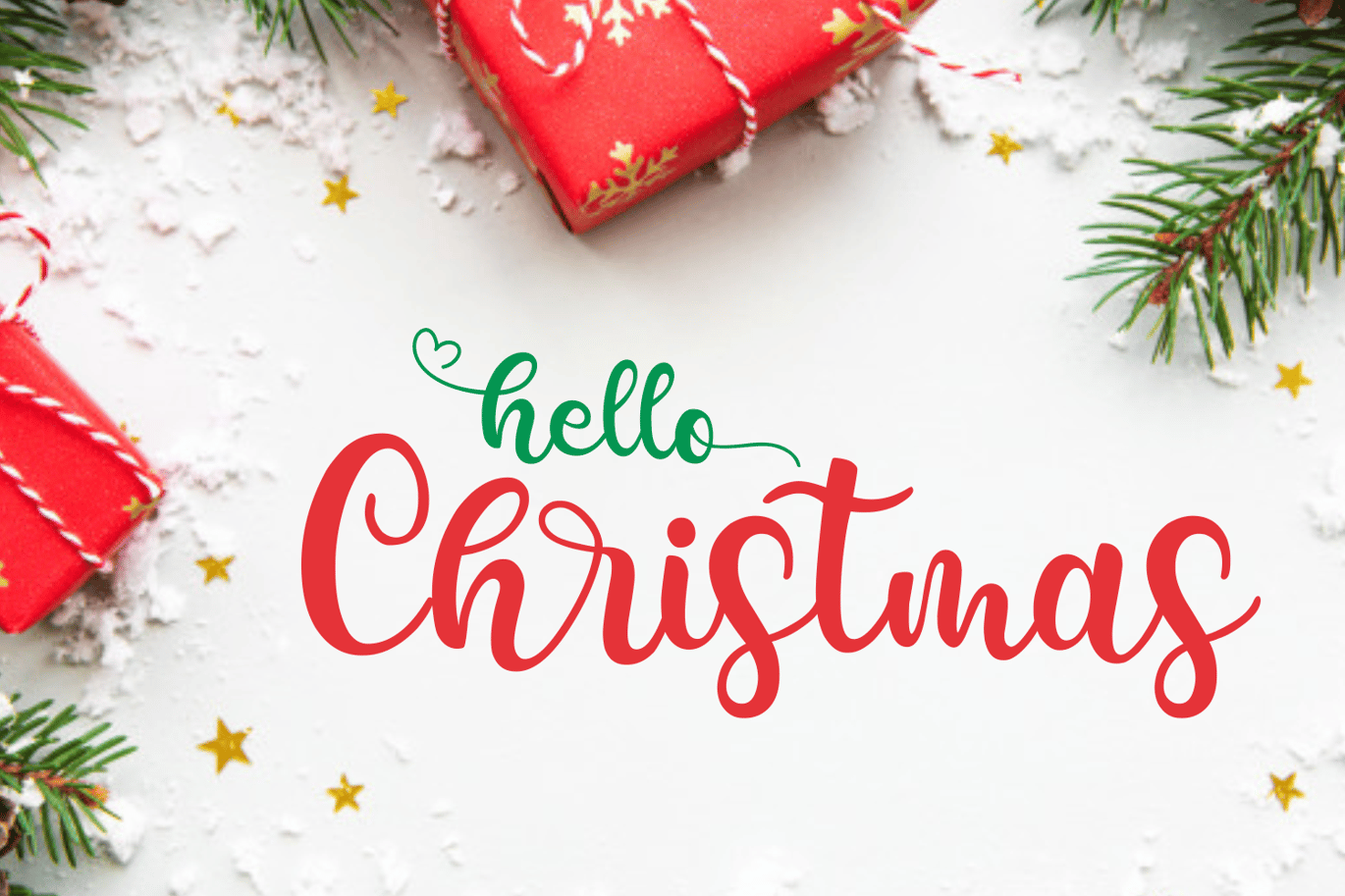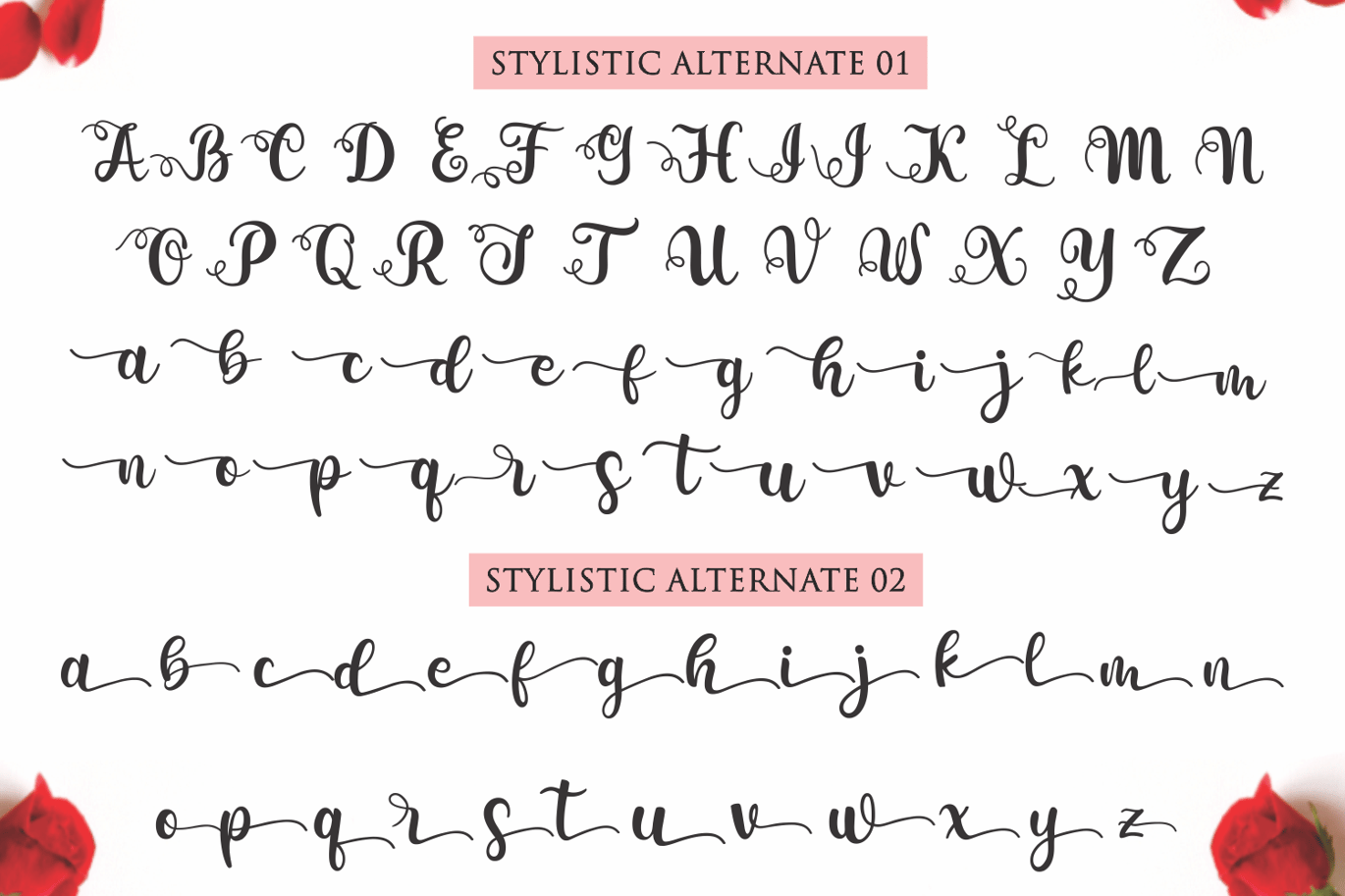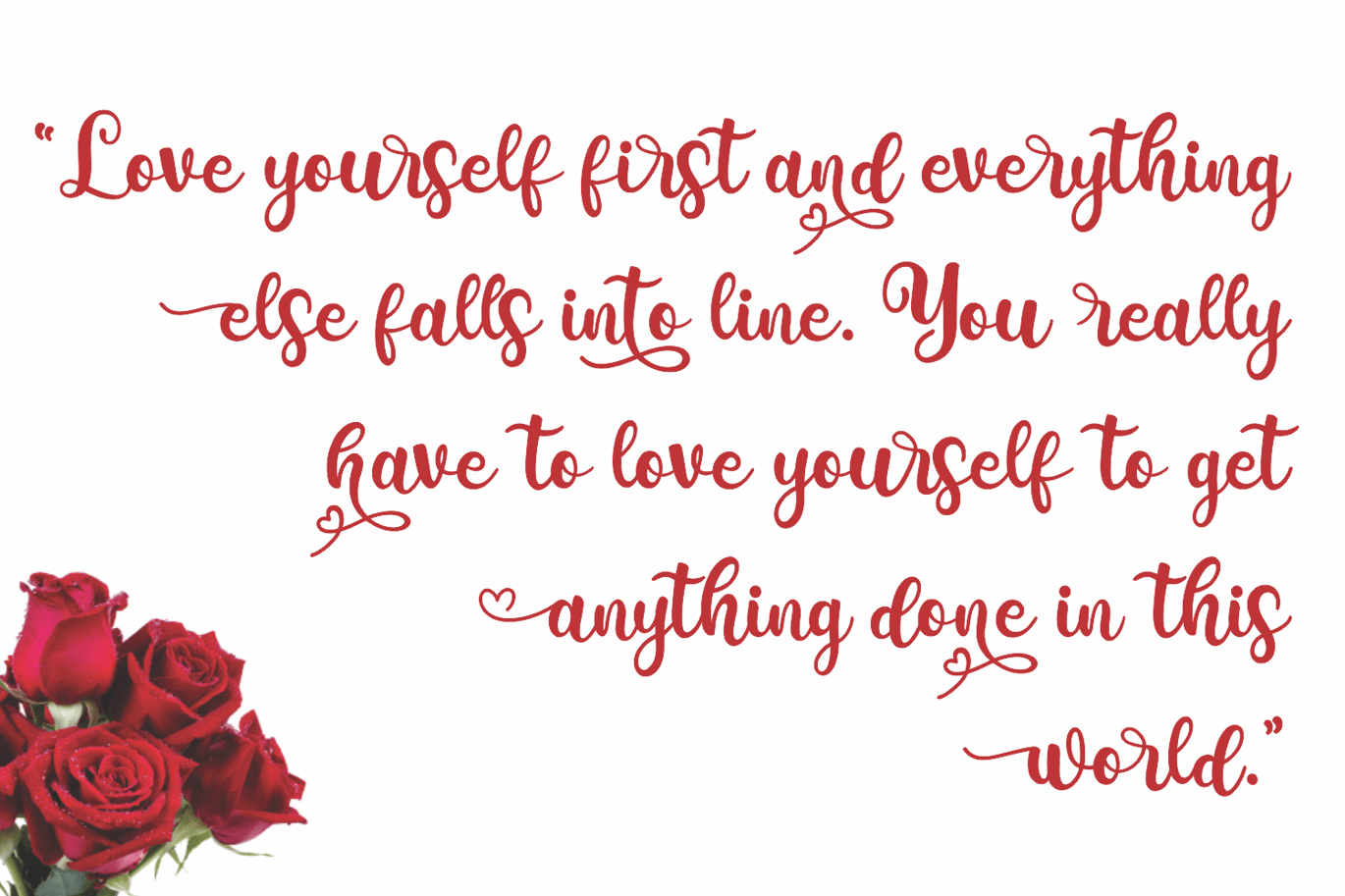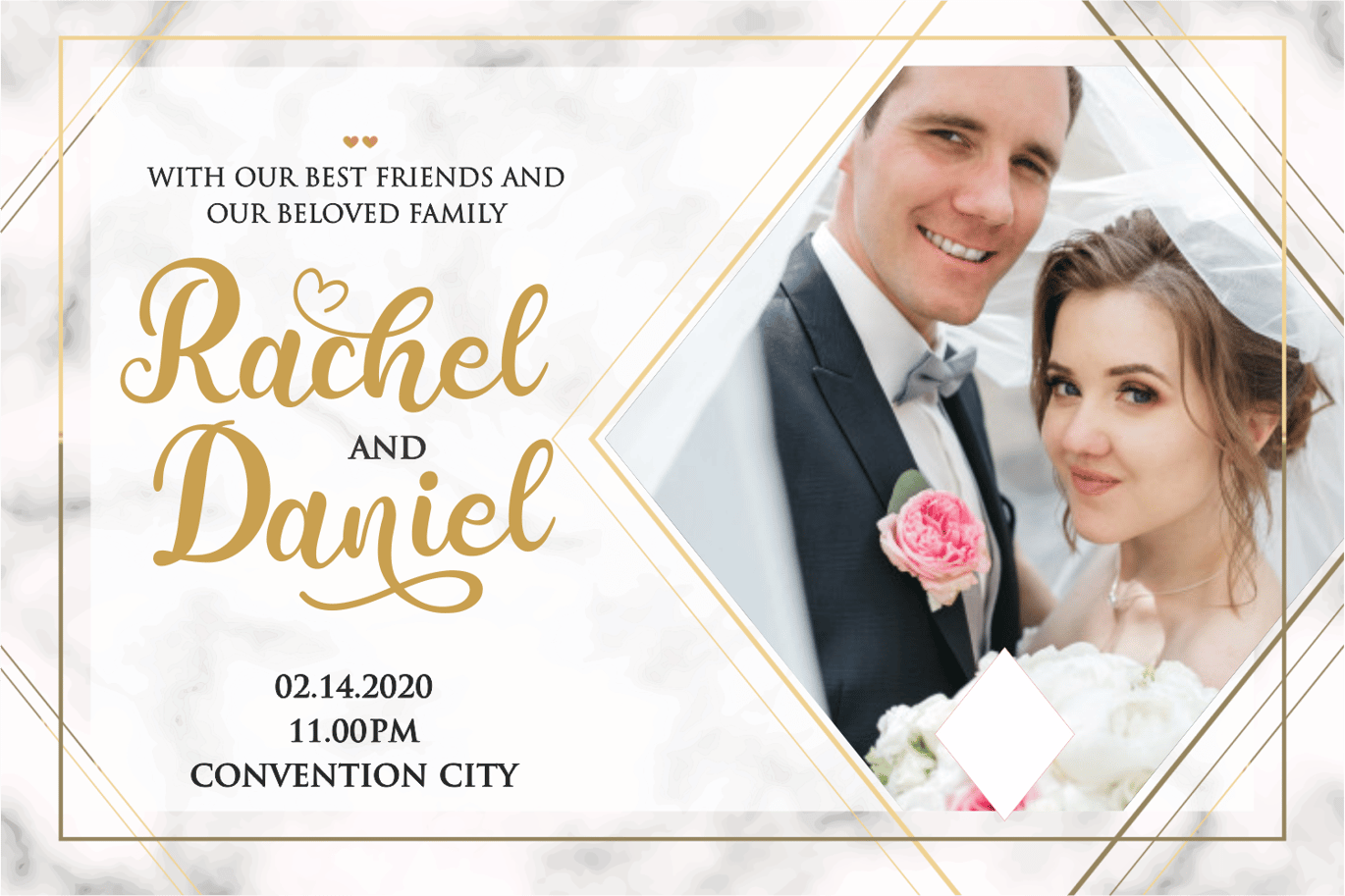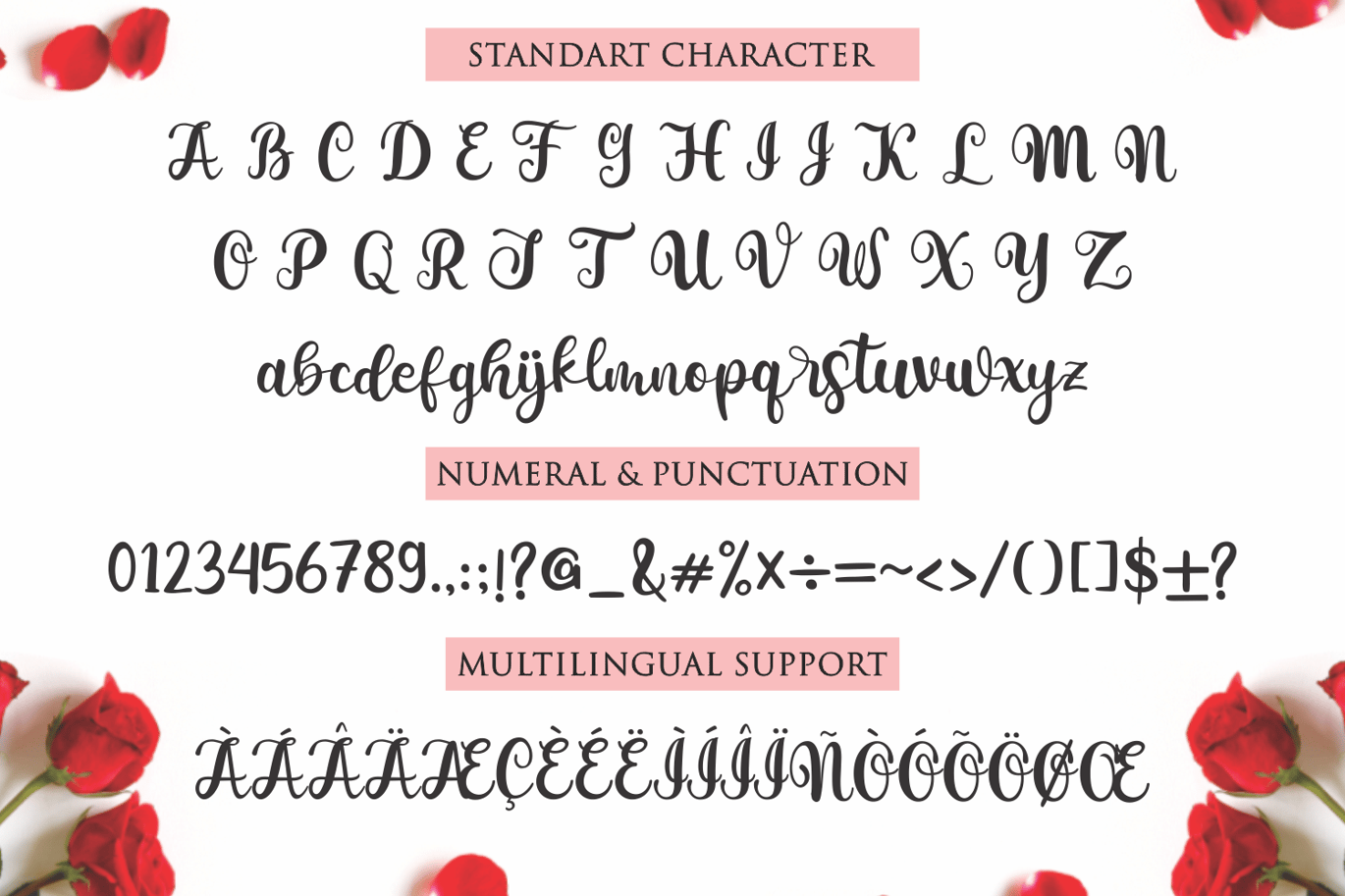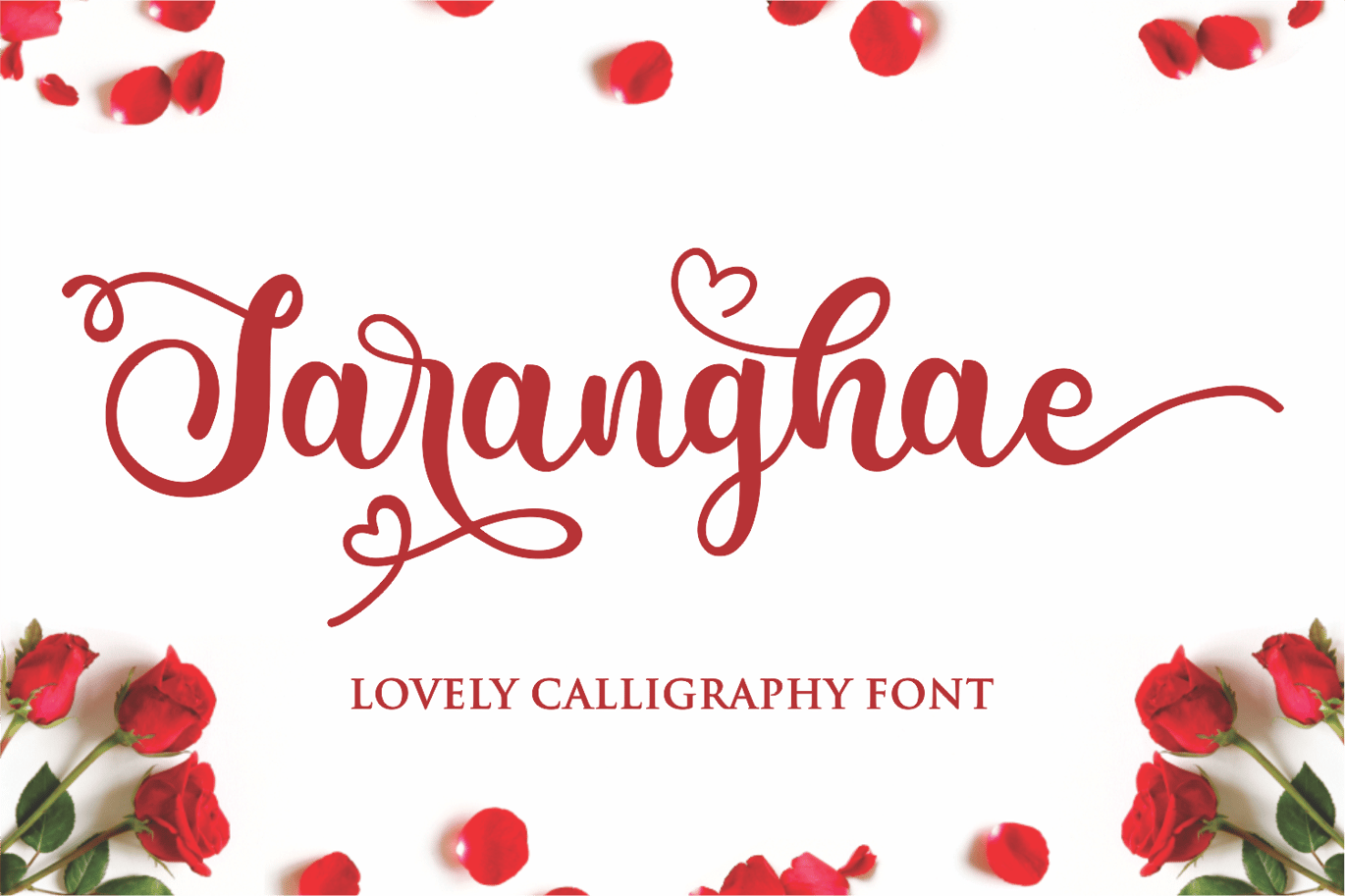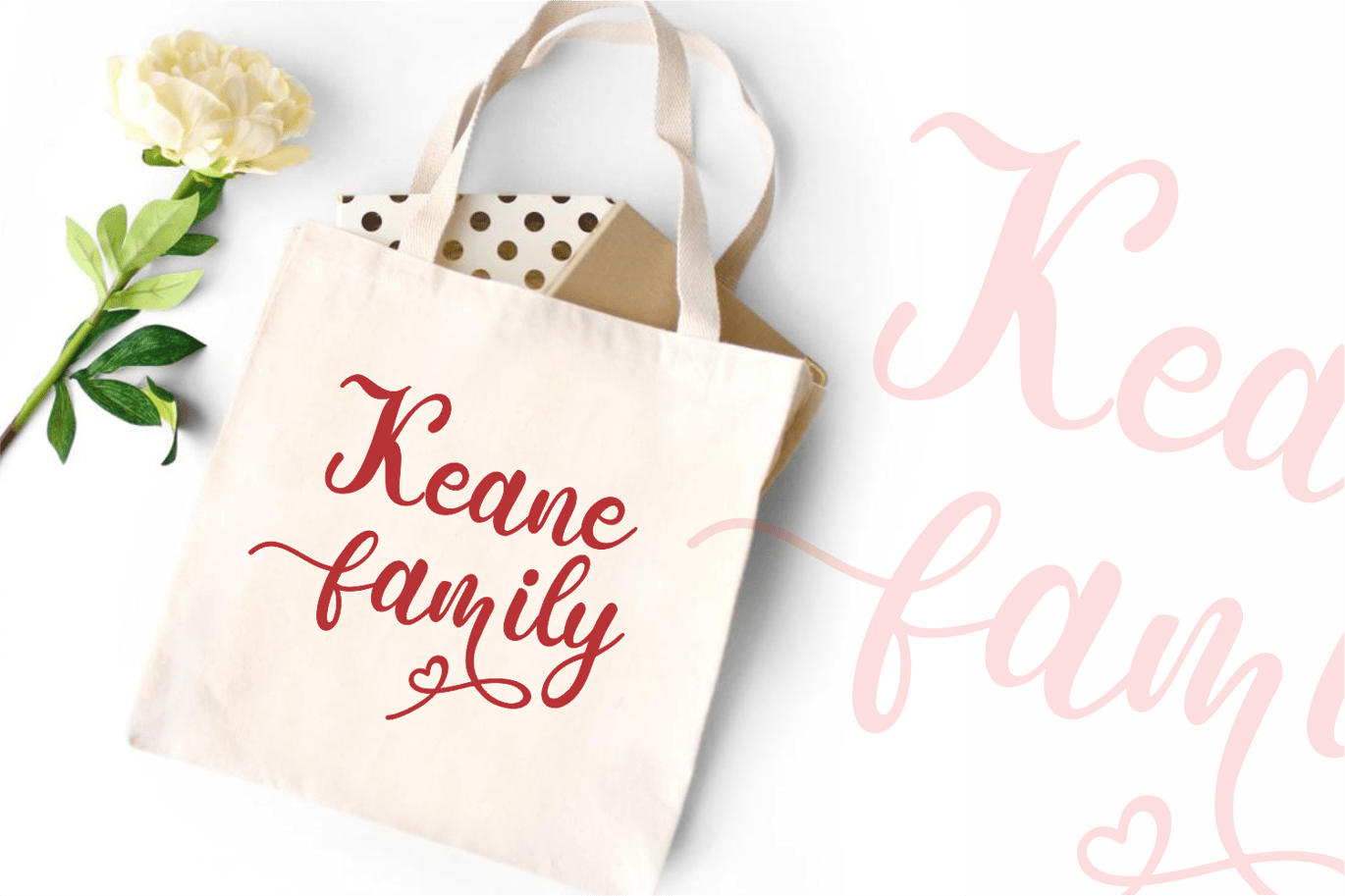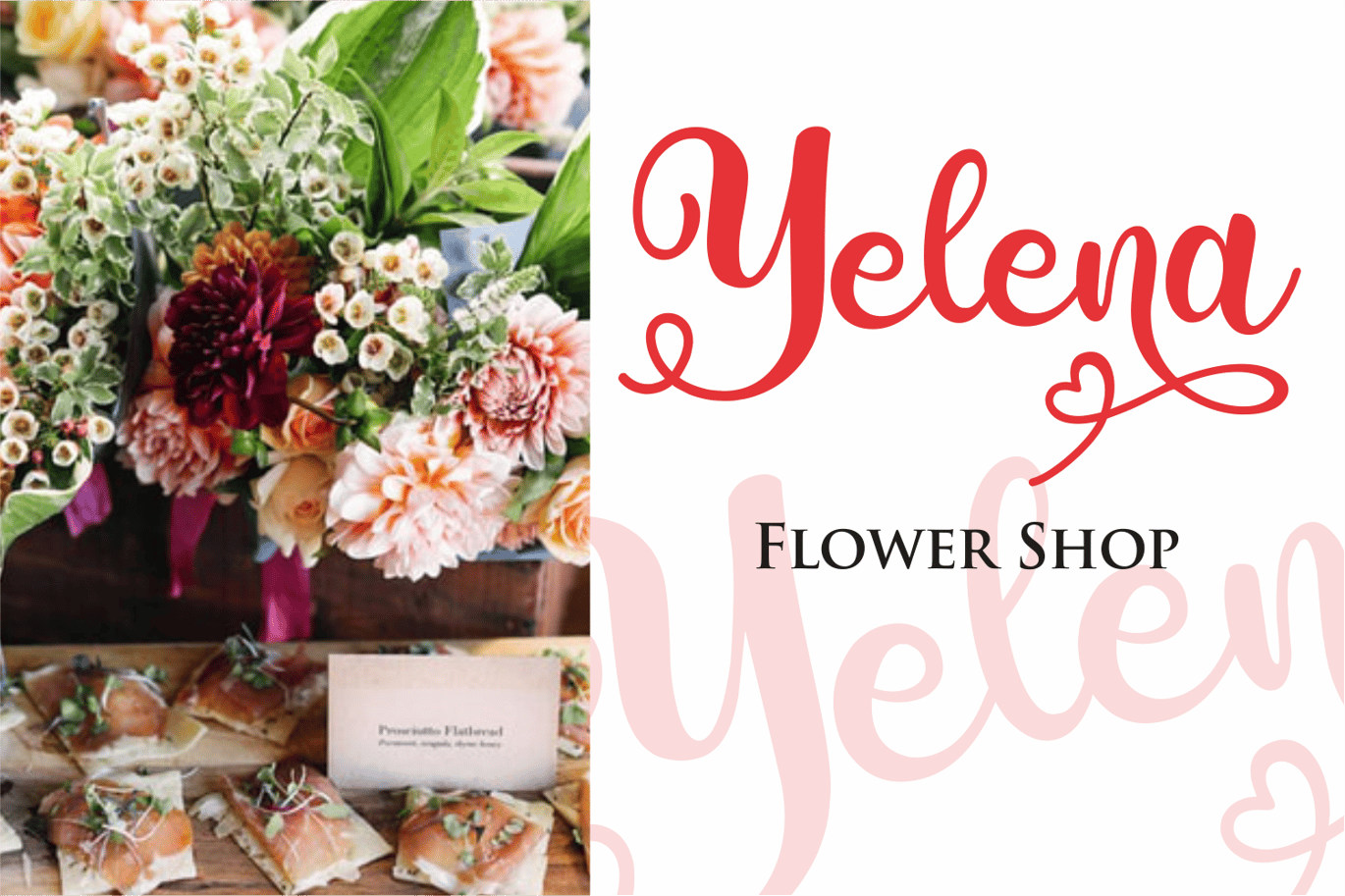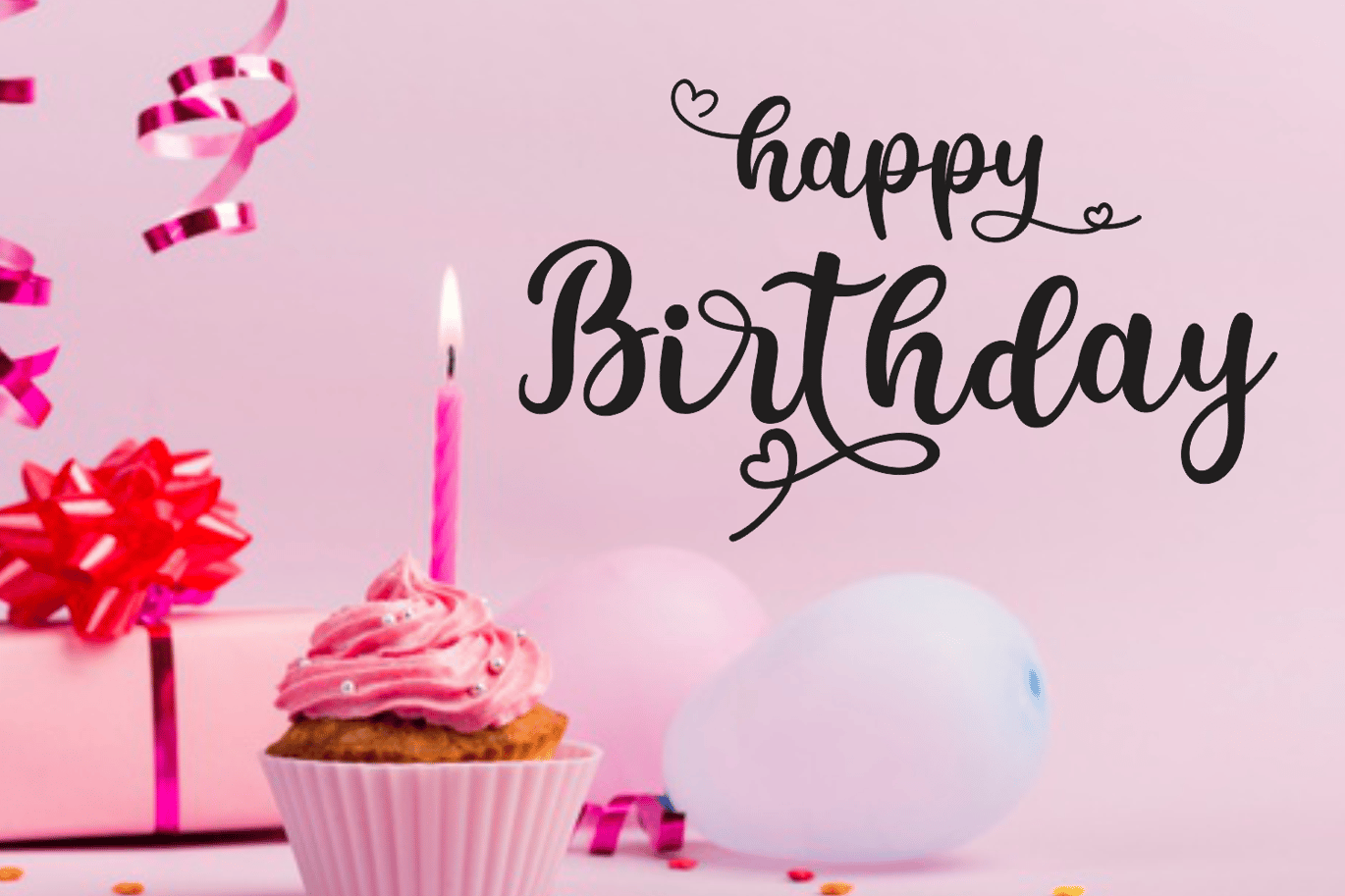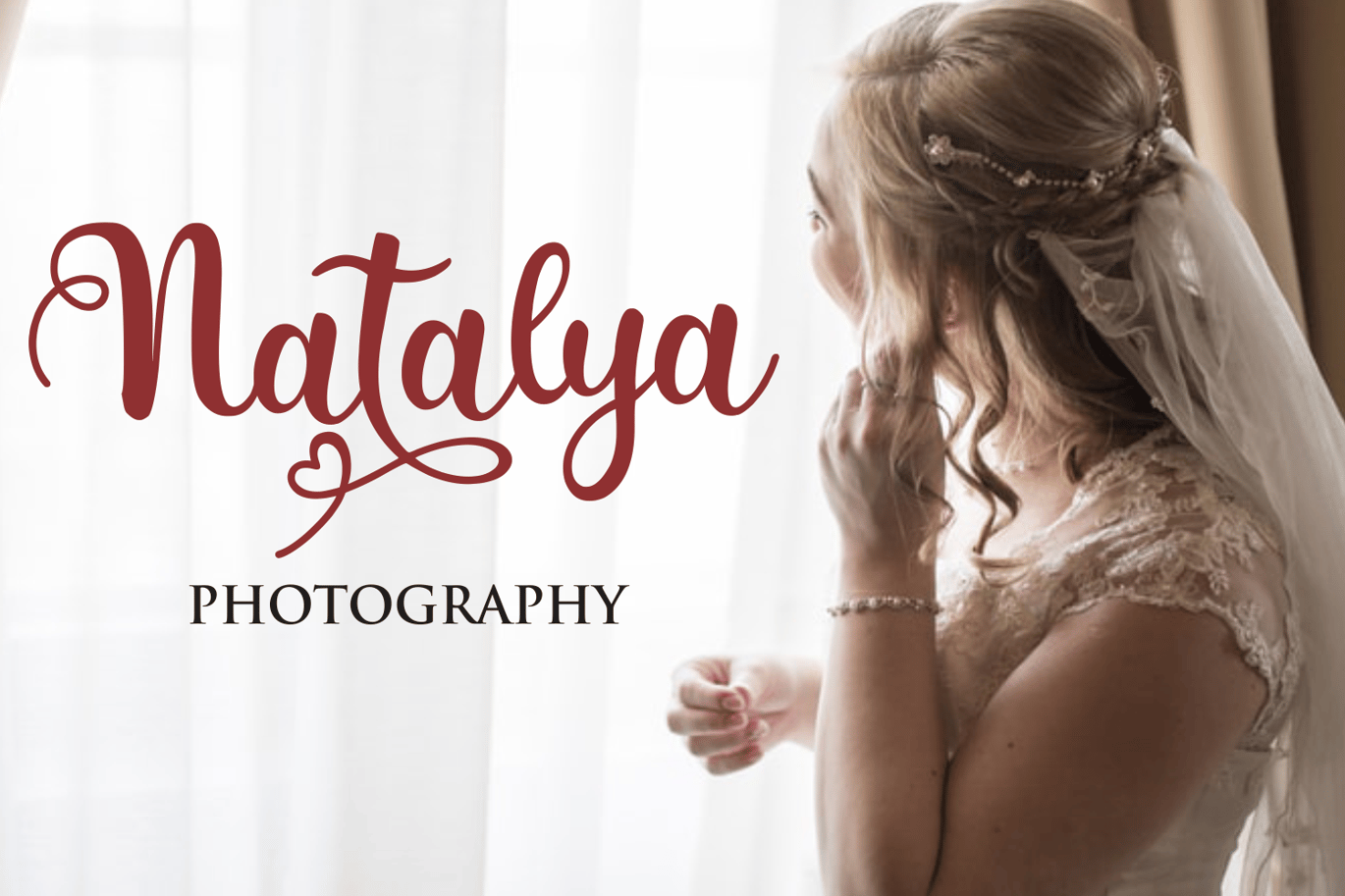
Saranghae – Christmas Font
It’s name Saranghae – Lovely Calligraphy Font.
Saranghae – Lovely Calligraphy Font a handcrafted script font with a handwritten style make this font looks elegant, natural, stylish .
Saranghae – Lovely Calligraphy Font would perfect for handcrafted, craft, invitation, logos & branding , photography, advertisements, watermark, social media posts,
product packaging, product designs, label, wedding designs, stationery, special events or anything that need handwriting taste.